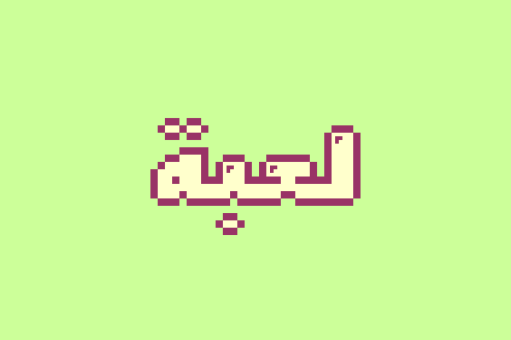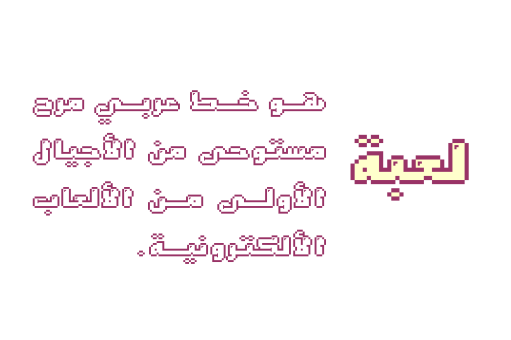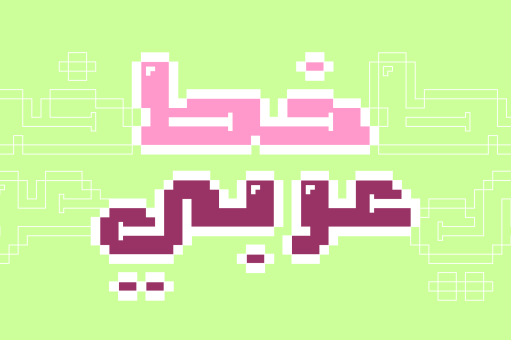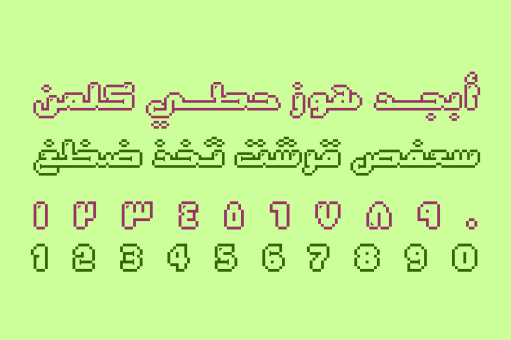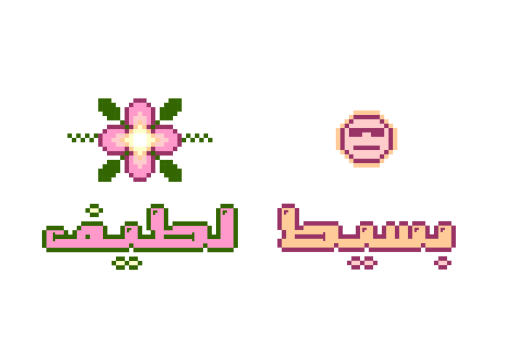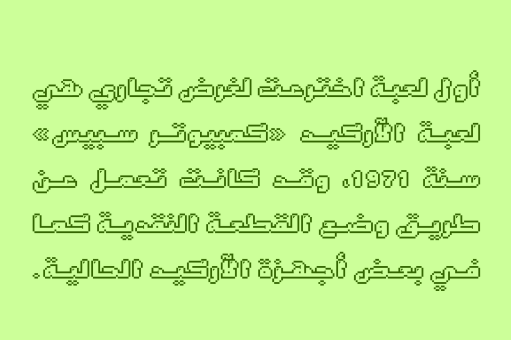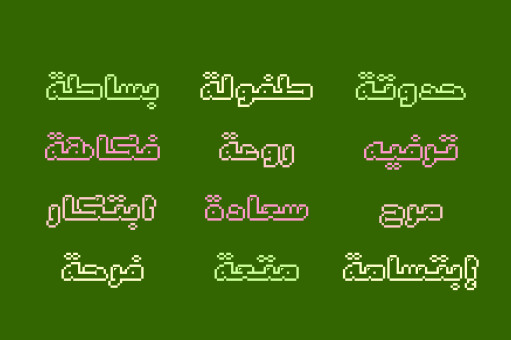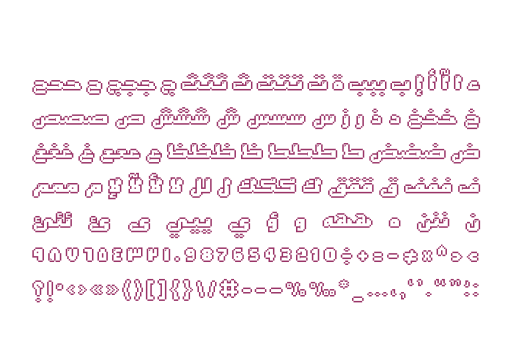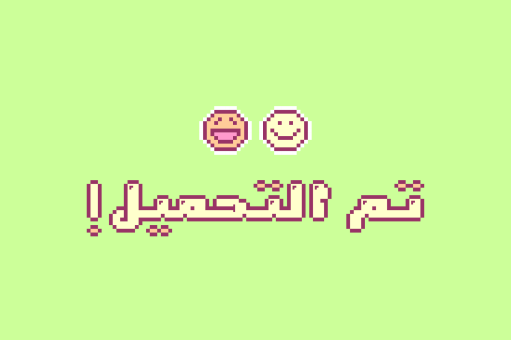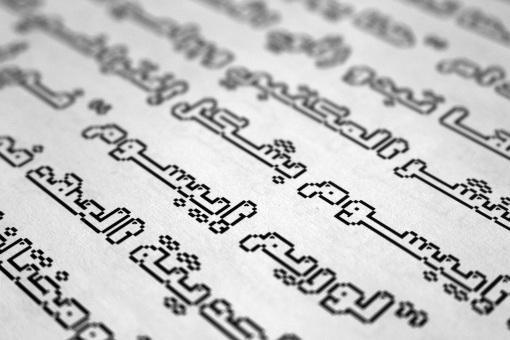
Loabah
Loabah لعبة is the Arabic word for game (or toy). This is a single weight Arabic font that suits various display purposes including web design, advertising and creative titling.